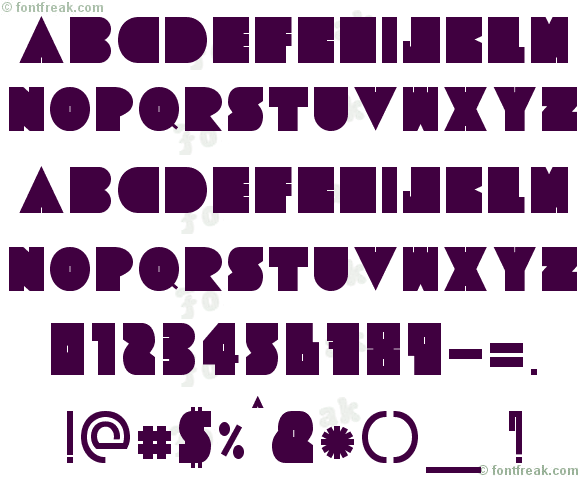
Tresdias
Tresdias Black
About Tresdias Black
Tresdias Black, designed by Ascle de Oliveira in 2015, is a striking display typeface that falls within the sans-serif category. This font showcases a bold and contemporary aesthetic characterized by its substantial stroke weight and minimal contrast. The letters feature a clean, geometric design that enhances legibility while exuding a modern flair. The spacing is carefully crafted, ensuring a harmonious flow whether used in large headlines or smaller text bodies.
Tresdias Black is particularly well-suited for a variety of creative projects. Its bold presence makes it an excellent choice for movie posters, where dramatic impact is essential. Additionally, it can elevate restaurant menus, providing a modern touch that complements various culinary themes. The font also works beautifully for branding materials, helping small businesses establish a strong visual identity. Moreover, content creators and graphic designers can leverage its distinctive style in social media graphics and promotional materials, ensuring their content stands out in a crowded digital landscape.
The target audience for Tresdias Black includes graphic designers seeking innovative type solutions, small business owners aiming to enhance their brand identity, and content creators looking to make a memorable impression. Its versatility and boldness appeal to those who value modern design aesthetics.
What sets Tresdias Black apart is its ability to seamlessly blend readability with a contemporary design, making it a go-to choice for various applications. The Tresdias Black font free download makes it accessible for anyone looking to enrich their design toolkit. Its unique characteristics and striking visual style ensure that it leaves a lasting impression, making it a valuable asset for any creative project.